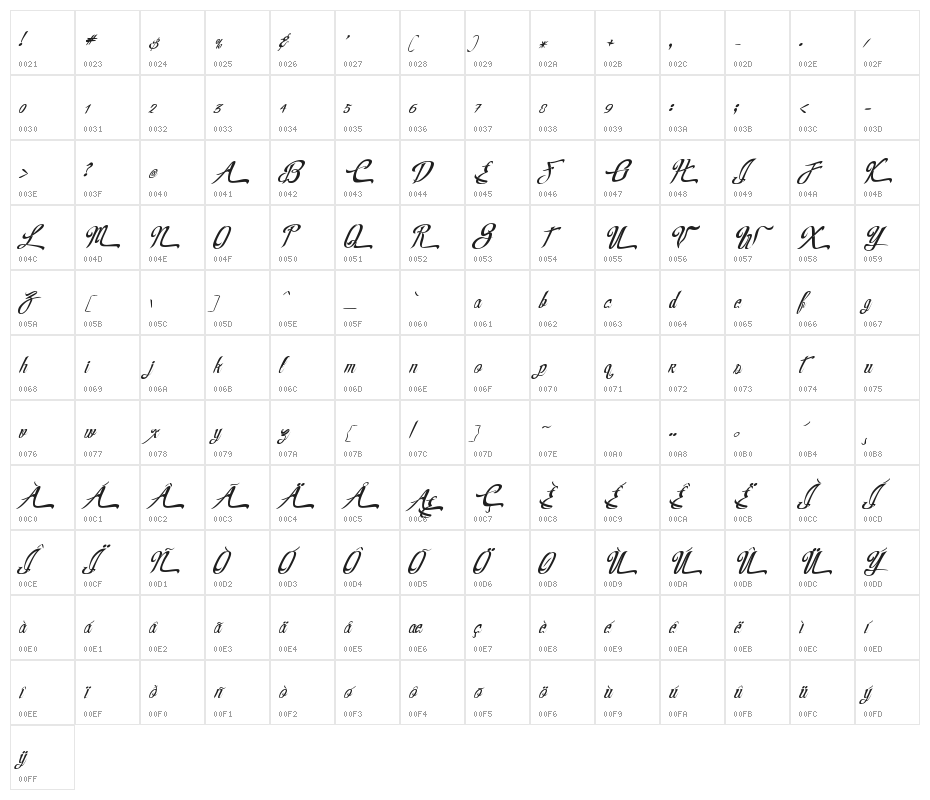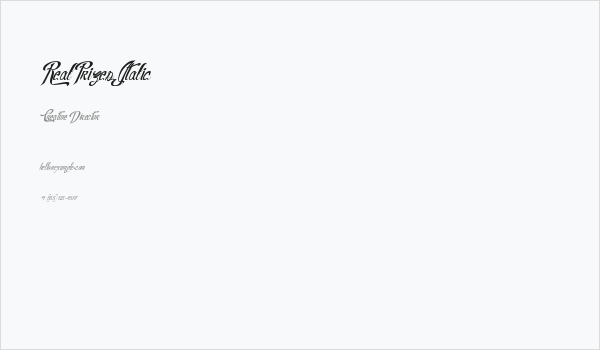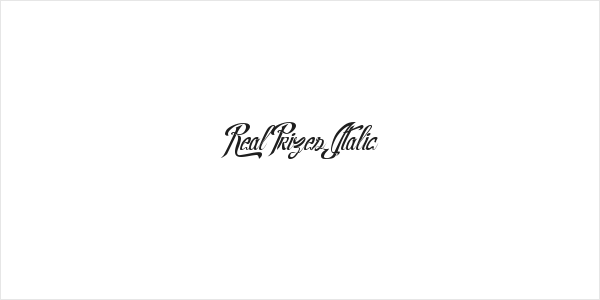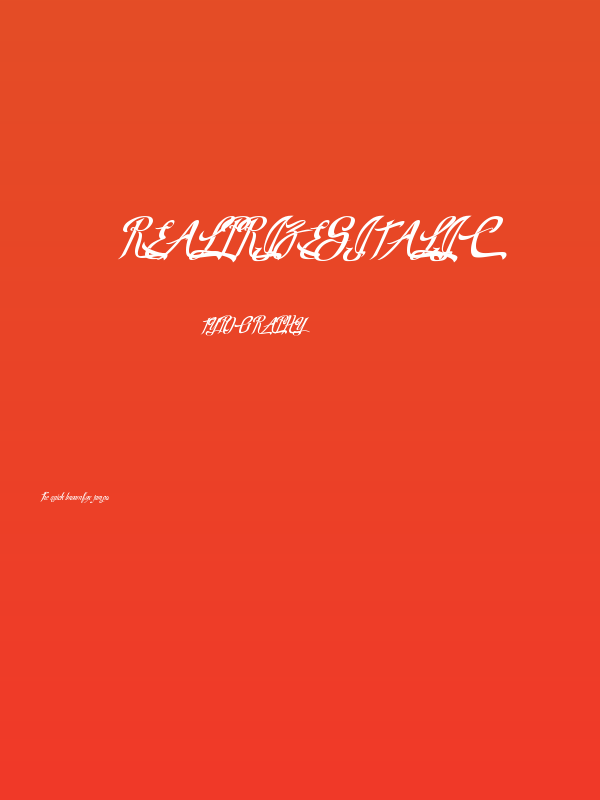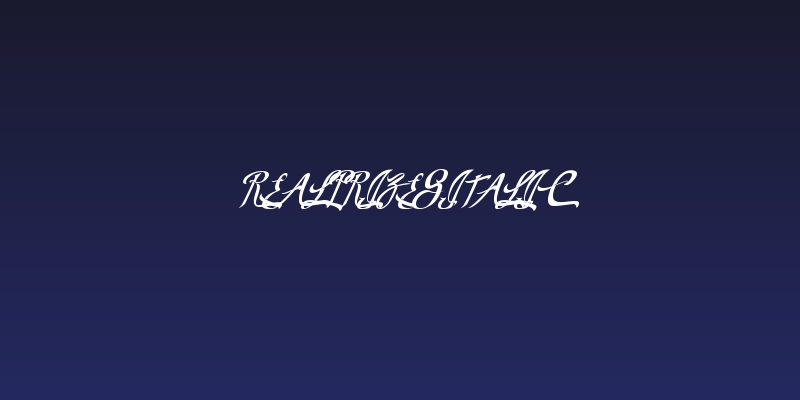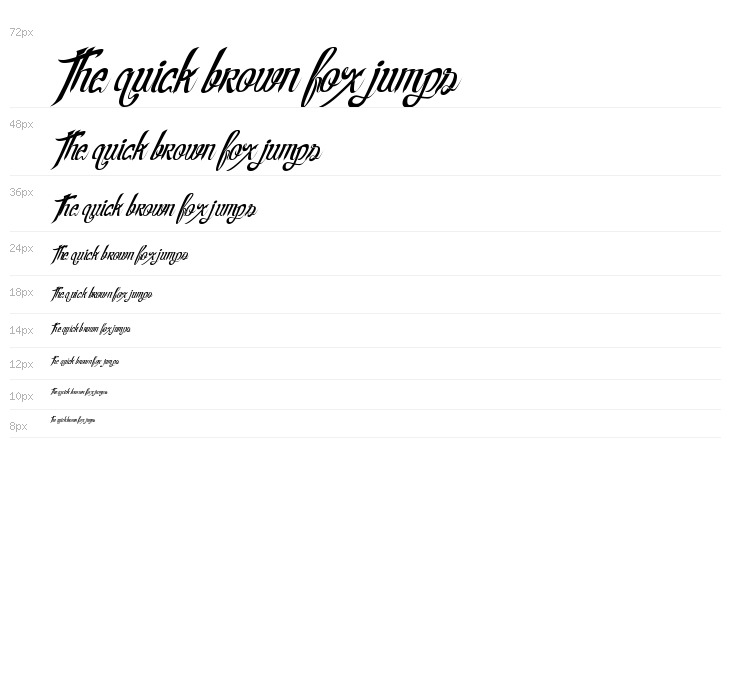
RealPrizesItalic Font
RealPrizesItalic Description
This font exhibits a highly decorative and ornate style, characterized by its intricate and flowing script. The letters are interconnected with elaborate swashes and flourishes, giving it a calligraphic appearance. The uppercase letters are particularly embellished, with exaggerated loops and curves that create a sense of elegance and sophistication. The lowercase letters maintain a consistent style, with smooth transitions and a slightly slanted orientation, enhancing the font's dynamic and fluid nature. The numerals and special characters are designed to match the overall aesthetic, featuring similar ornate details. This font is well-suited for projects that require a touch of luxury and artistic flair.
| Use Case | Logos, Invitations, Decorative headings |
| Proposed Projects | Ideal for wedding invitations, luxury branding, artistic posters, and elegant packaging designs. |